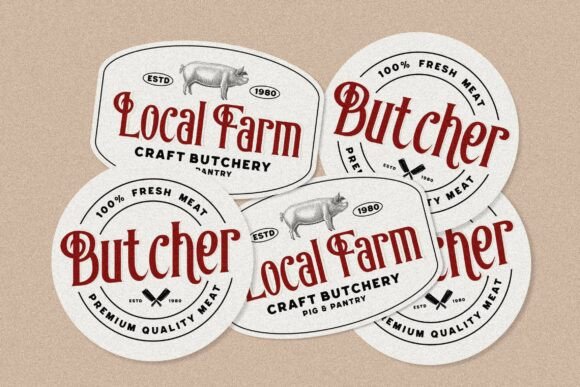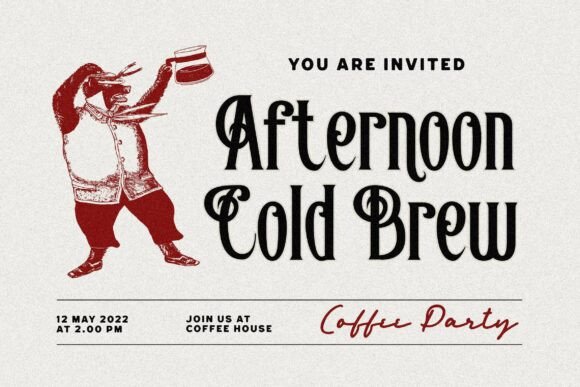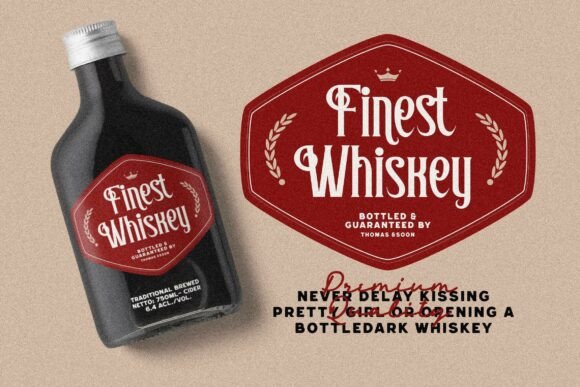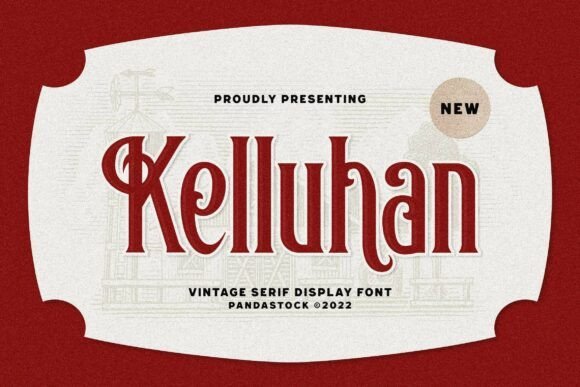
Introduction to Kelluhan Font
Kelluhan is a vintage serif typeface designed with rich ornamental features that are characteristic of victorian era display typography, often seen on old posters, certificates, and theater signage.
This font features tall, elegant letterforms with intricate swashes and curved serifs, giving it a sophisticated and spectacular appearance It is well suited for display purposes such as branding, product logos, book cover, certificates, premium packaging, and signage.